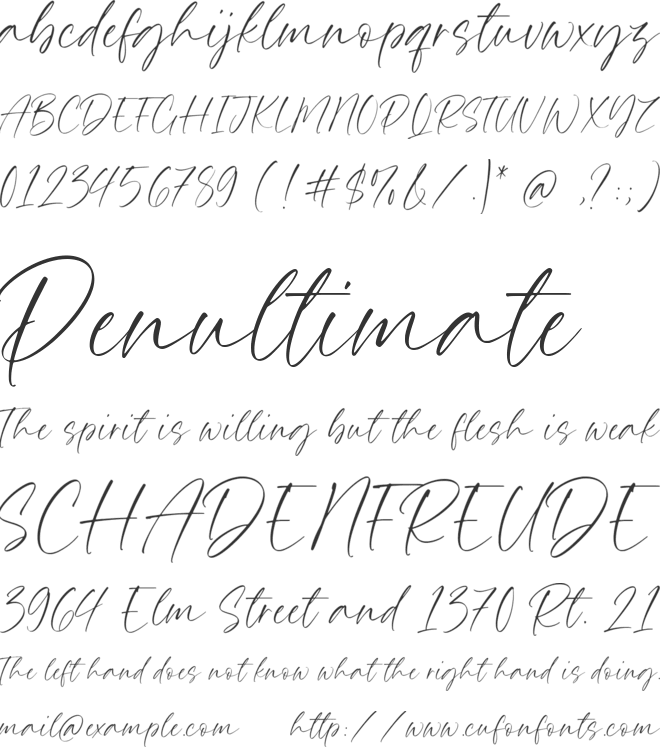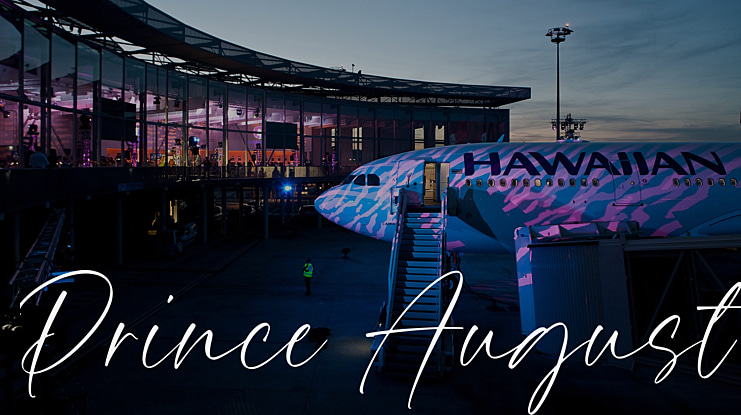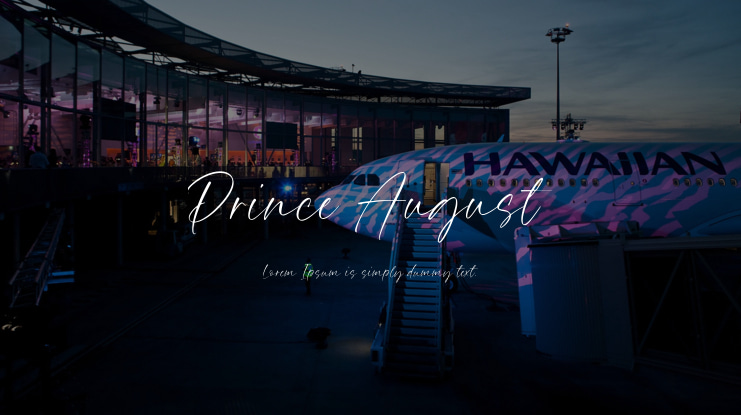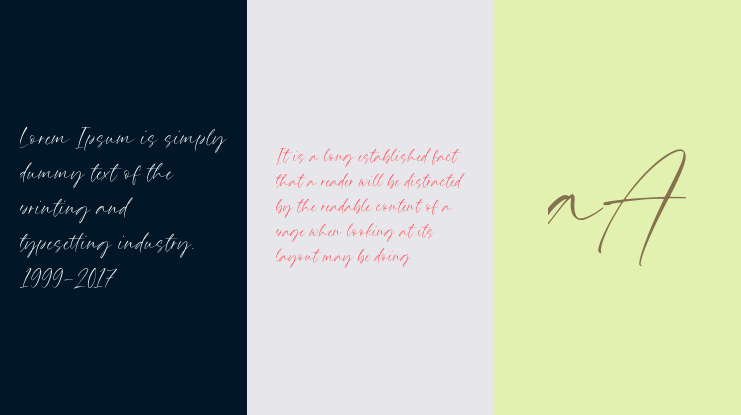
Prince August Font
The Prince August Handwritten Font is a modern and fresh script font that will add a warm and inviting touch to your business. Discover the beauty and charm of this font for yourself.
Prince August is the perfect choice for product packaging, branding projects, magazines, social media, weddings, or any occasion where you want to make a statement.
Key Features of Prince August Font:
- Includes a full set of standard alphabet and punctuation marks
- Offers multilingual support